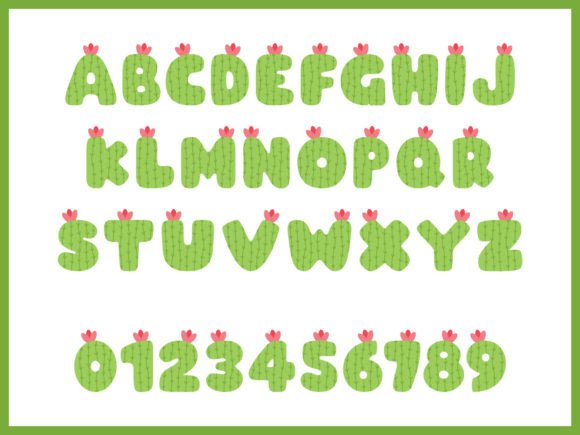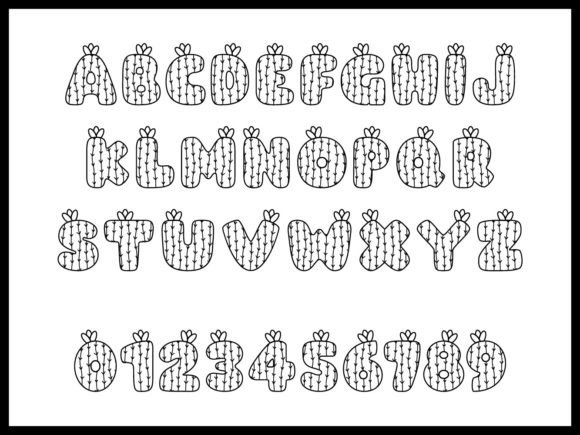
The Prickly yet Charming Cactus Font: A Designer’s New Best Friend
I’ll never forget the time I was working on a project for a client who wanted a fun, outdoorsy vibe. I had all the design elements in place – the colors, the graphics, the overall aesthetic – but something was missing. That’s when I realized I needed a font that would tie everything together and add a touch of personality to the design. After scouring the internet and trying out a dozen different fonts, I stumbled upon the Cactus font. And let me tell you, it was love at first sight! 💚
The Cactus font is a unique and easy-to-spot color font that adds a green and distinctive touch to any design. Its quirky, hand-drawn feel makes it perfect for projects that need a bit of whimsy and charm. In this article, I’ll share my honest review of the Cactus font, provide a step-by-step guide on how to use it on different platforms, and explore similar fonts you might love.
What I Love About Cactus Font
- ✨ Unique and eye-catching color design that adds visual interest to any project
- ✅ Easy to read and understand, even in small sizes
- 💚 Fun and playful vibe that’s perfect for outdoor, nature-inspired, or eco-friendly designs
- 🎨 Highly versatile and can be used for a wide range of projects, from posters to social media graphics
While the Cactus font is an amazing addition to any design, there are a few things to keep in mind:
- ⚠️ May not be the best choice for very formal or professional designs, as it has a distinctly playful feel
The Story Behind Cactus Font
The Cactus font was designed by a team of creatives who wanted to create a font that would capture the spirit of the American Southwest. Inspired by the iconic cactus plants that dot the desert landscape, they crafted a font that’s both fun and functional. With its bold, colorful design and playful vibe, the Cactus font is perfect for designers who want to add a touch of personality to their work.
| Font Name | Cactus Font |
| Author | Imagination Switch |
Q: What type of designs is the Cactus font best suited for?
A: The Cactus font is perfect for outdoor, nature-inspired, or eco-friendly designs, as well as projects that require a fun and playful vibe.